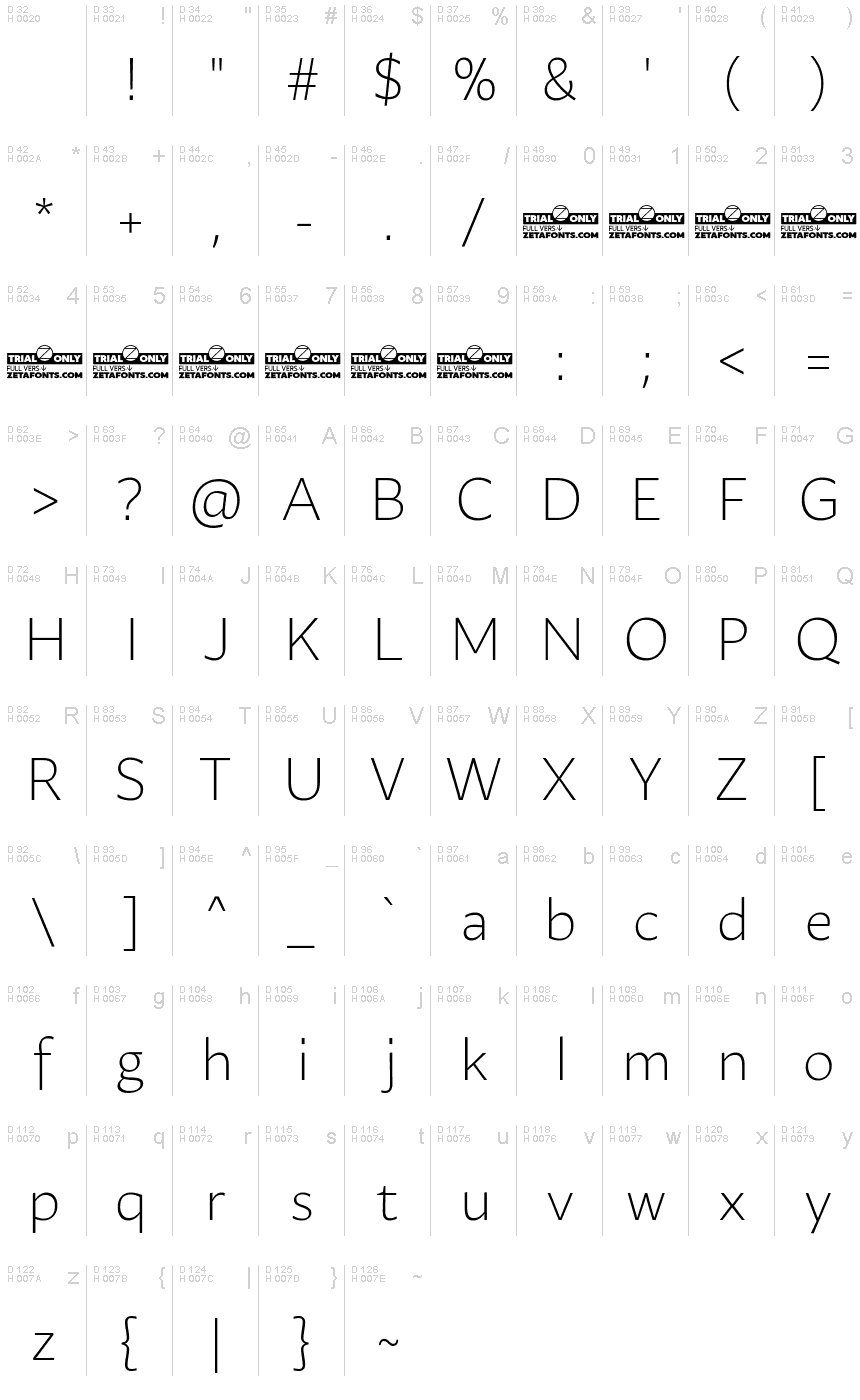
Ambra Sans Text Trial Light
Ambra Sans Text Light is a modern sans serif font designed by Francesco Canovaro. Its extra-light weight makes it perfect for projects where a delicate and minimalistic touch is needed, such as elegant invitations, high-end fashion branding, or sophisticated editorial designs. The font's clean and simple lines give it a timeless quality that can be paired with both bold and subtle design elements alike. Ambra Sans Text Light's legibility also makes it suitable for body text in both print and digital mediums. Elevate your next project with the contemporary charm of Ambra Sans Text Light.
Designed by Cosimo Lorenzo Pancini with Francesco Canovaro as a development and reinvention of Tarif by Andrea Tartarelli, Ambra is a humanist sans typeface family, drawn around a lively, expressive skeleton but developed with a contemporary, post-digital sensibility that implies low contrast and tall x-height.
In designing Ambra, the authors wanted to research the elusive natural signature of handmade humanist letter shapes, in the effort of preserving it while still developing all the capabilities of type as a technical tool in the digital age. Like a frail insect preserved in amber, humanist design is the "ghost in the machine" of this font, that aims at seducing the viewers with its soft, welcoming text flow, firmly opposing the rigid, formal tone of most sans serif fonts. Born to provide a useful tool to graphic designers with branding and editorial needs,
Ambra develops around two subfamilies with slight but fundamental differences. The display family offers a taller x-height, optimizing readability and spacing in headings and display use, while offering a single story lowercase g to provide more consistent branding usage. The text family, on the other side, goes for a smaller x-height to give more traditional proportion to the text and removes the slight tapering in the stems to provide better rendering on screen in small formats.
Both subfamilies of Ambra develop around a wide range of seven weights with corresponding true italics, with Ambra Display sporting an extra heavy weight for maximum versatility. In total the family counts 30 fonts, each with over 600 glyphs for a wide language coverage. Open type features and glyph alternates further enrich the usage possibility of this typeface that wants to offer contemporary designer an alternative, unexpectedly human approach to contemporary sans type, softly preserving the spirit of handmade calligraphy while encasing its frail nature in a transparent, strong and powerful design language.